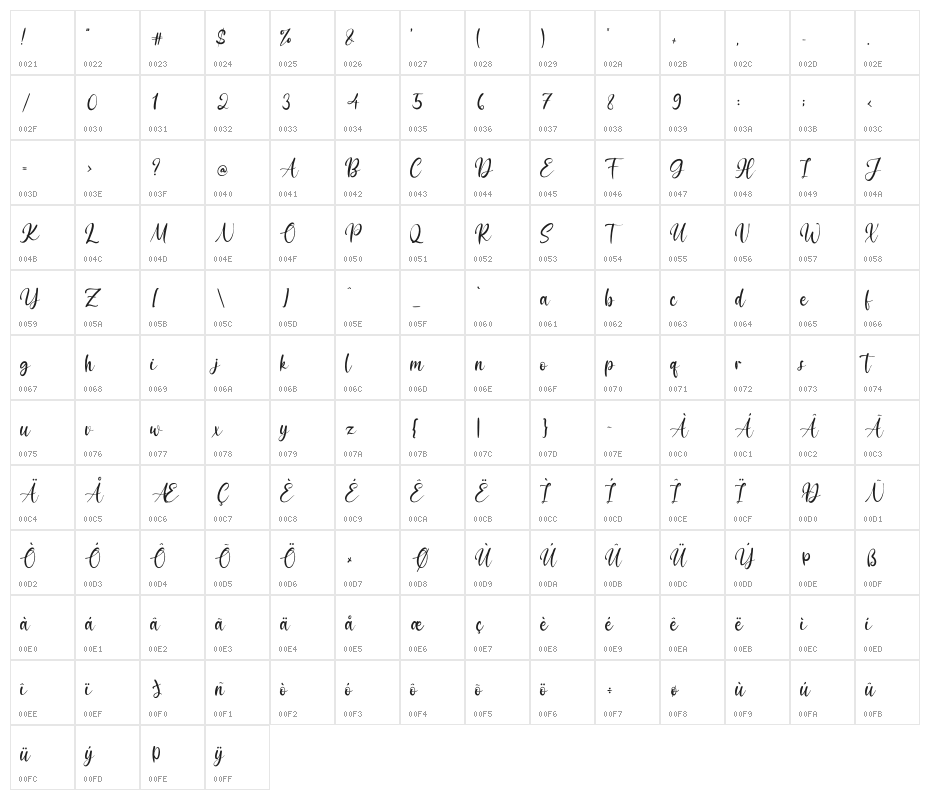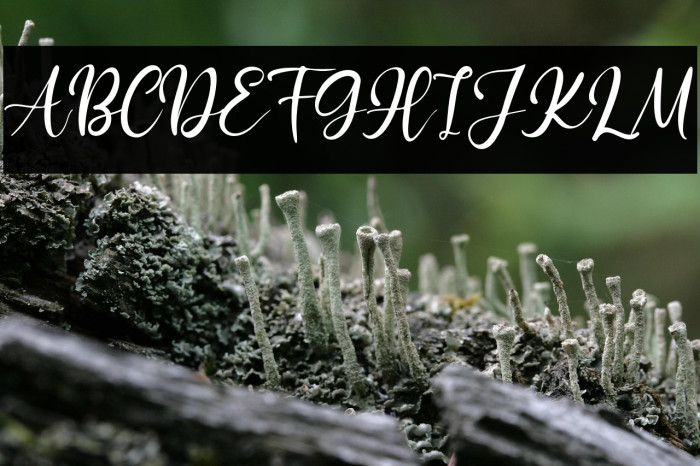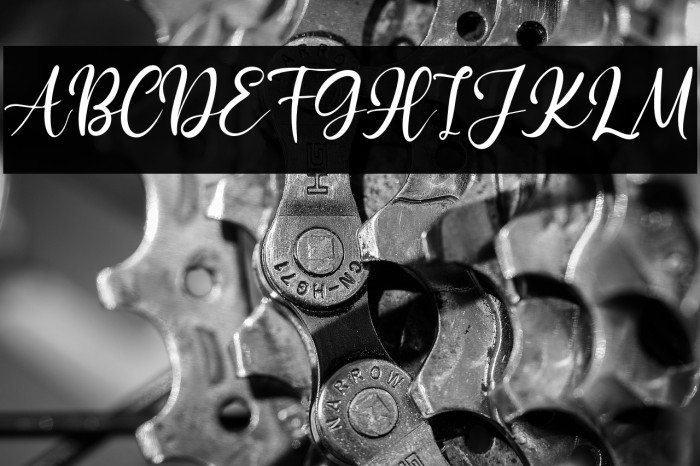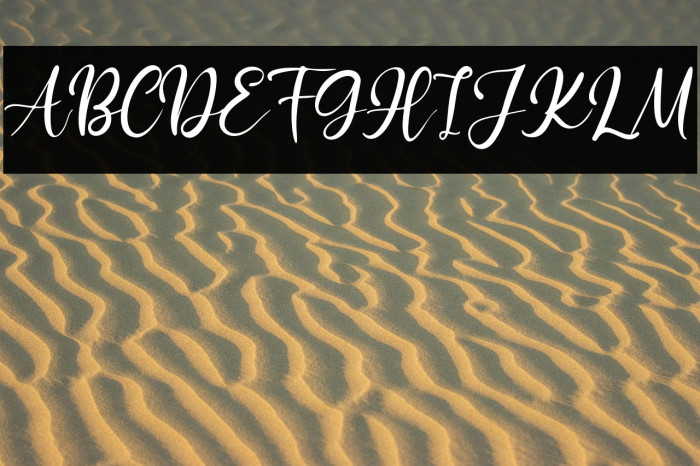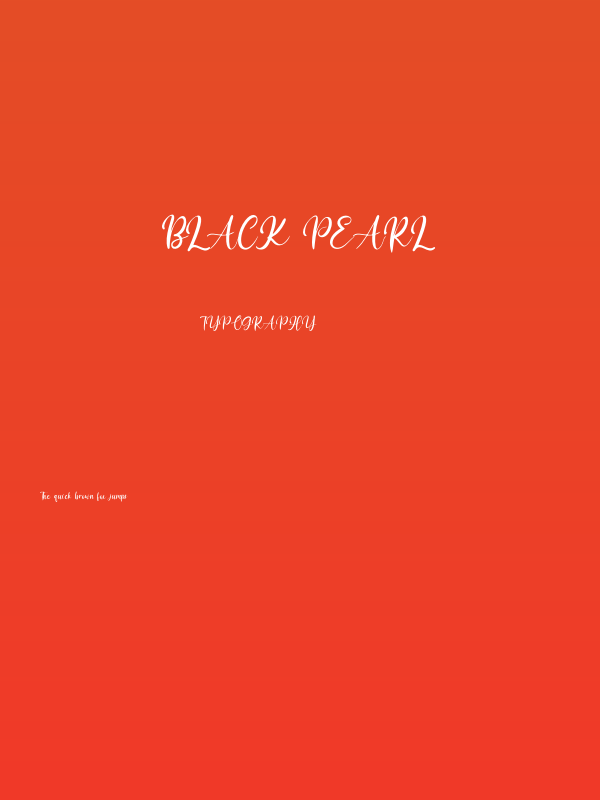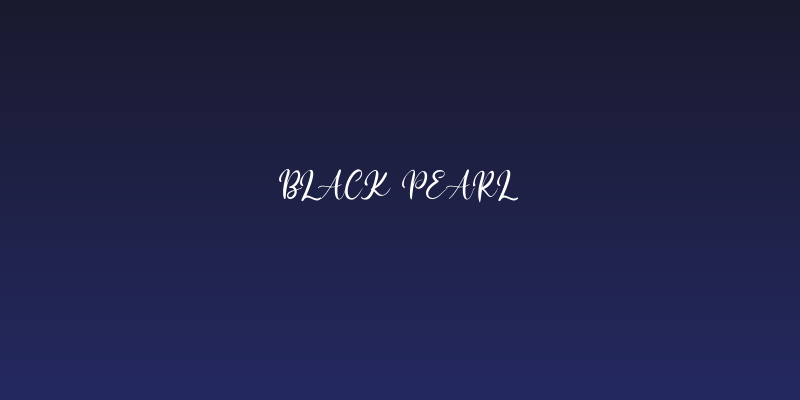
Black Pearl Font
Black Pearl Description
This elegant script font features a flowing, cursive style with smooth, connected strokes that give it a sophisticated and graceful appearance. The uppercase letters are particularly ornate, with sweeping lines and loops that add a touch of flair. The lowercase letters maintain a consistent style, offering a harmonious blend of curves and angles. The numerals are clear and easy to read, while the special characters retain the font's overall aesthetic. This font exudes a sense of elegance and is perfect for projects that require a touch of class and refinement.
Overall StyleElegant
Use CaseLogos, Invitations, Decorative text
Proposed ProjectsIdeal for wedding invitations, elegant branding, greeting cards, and upscale packaging.